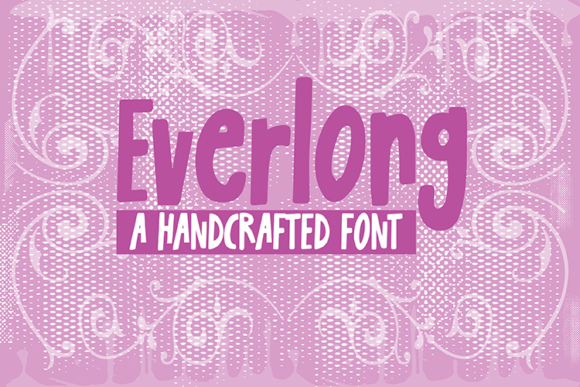
Unlock the Power of Everlong Font
Have you ever stared at a blank canvas, waiting for that perfect spark to ignite your creativity? Maybe it’s the late-night brainstorming session, the early morning coffee-fueled ideas, or the moment when everything comes together in a beautiful, messy way. Whatever it is, that magical moment when your design comes to life is what makes all the hard work worth it.
One of the essential tools in your creative arsenal is a reliable font that can elevate your work to the next level. That’s where the Everlong Font comes in – a charming and robust display font designed to make your headlines pop and your text blocks shine. Whether you’re working on a web project, print materials, or even moving images, this handcrafted typeface is sure to impress.
Everlong Font Key Features
- Font Family: Everlong Font is a unique, modern sans-serif font designed for various digital applications.
- Character Set: The Everlong Font includes a comprehensive set of characters, including uppercase and lowercase letters, numerals, punctuation marks, and special characters.
- Unique Characteristics: The Everlong Font features a clean, minimalist design with subtle rounded edges, making it perfect for modern branding, signage, and corporate identity projects.
- Size: The font is available in multiple weights, ranging from Light to Bold, allowing designers to achieve a wide range of visual effects and emphasis.
Everlong Font Review
I recently had the chance to work with the Everlong Font, and I must say, it’s a decent choice for digital typography. ✨ The font’s clean and modern design makes it suitable for various applications, from web design to print materials. It’s also highly customizable, allowing designers to adjust the font’s weight, size, and line height to suit their needs.
One of the standout features of the Everlong Font is its excellent readability. ✨ The font’s letterforms are well-designed, making it easy to read even at small font sizes. Additionally, the font’s OpenType features enable advanced typographic effects, such as ligatures and swashes, which can add a touch of elegance to any design.
While the Everlong Font is a solid choice, it’s not without its limitations. ⚠️ For one, the font’s character set is limited, which may be a concern for designers working on projects that require a wide range of languages or special characters. Additionally, the font’s bold and italic weights may not be as polished as the regular weight, which could be a drawback for designers who rely heavily on bold and italic typography.
In conclusion, the Everlong Font is a good option for designers looking for a clean and modern font. While it may not be perfect, its strengths far outweigh its limitations. With its excellent readability and customization options, it’s definitely worth considering for any design project.
- ✨ Clean and modern design
- ✨ Highly customizable
- ✨ Excellent readability
- ⚠️ Limited character set
- ⚠️ Bold and italic weights may not be polished
Tips for Getting the Most Out of Everlong Font
To get the most out of the Everlong Font, try the following:
- Use it in bold or italic styles to add emphasis to your text.
- Combine the Everlong Font with other fonts to create a unique and visually appealing design.
- Experiment with different font sizes to create a clear hierarchy of information.
Common Use Cases for Everlong Font
The Everlong Font is commonly used for:
- Music-related designs, such as album art or concert posters.
- Fashion designs, such as clothing labels or advertising materials.
- Emotive and expressive designs, such as posters or social media graphics.
Alternatives to Everlong Font
Avenir Next
Avenir Next is a sans-serif typeface designed by Adrian Frutiger. It’s a modern and sleek font that works well for digital interfaces and branding. When to use: Use Avenir Next for clean and minimalist designs where you want to convey a sense of professionalism and sophistication. Comparison: Avenir Next has a more geometric feel compared to Everlong Font, which is more rounded and friendly. Avenir Next is also more suitable for body text, while Everlong Font is often used for titles and headings.